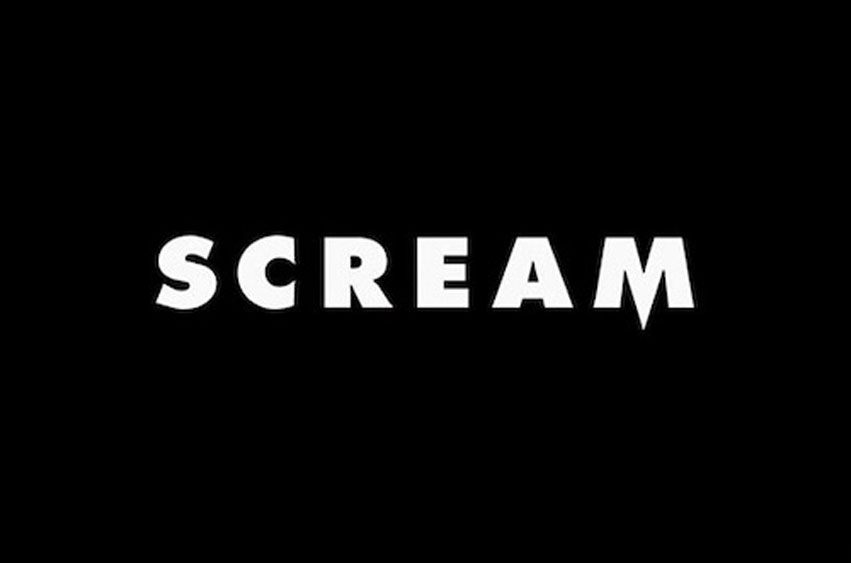
Scream Font
Scream Font is an elegant movie typeface that has a fancy look that was designed and published by Samuel Park. Scream is a great film from the USA, it was released in 1996 that is written by Kevin Williamson. Scream Font includes 2 unique styles along with over 200 characters and 91 different glypes.
The horror movie Scream is not a mass movie, it may be a must-see, but it’s not for everyone. Especially for a weak audience. A long story full of challenges and action sequences extremely refined in terms of technique and acting creates terrifying scenes interspersed with emotional scenes. This 5th movie of Scream came out recently, more than 10 years after the 4th part of this movie. It gives a feeling of extreme suspense with the state of waiting.